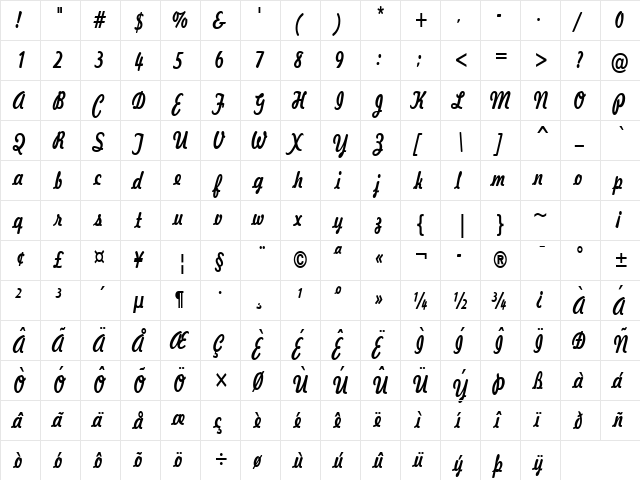
Jott 43 Thin Bold
Design Context for Jott 43 Thin Typeface
Jott 43 Thin takes a measured approach to typography — its balanced proportions and neutral character make it a reliable workhorse for both digital and print work. The heavy weight commands attention and anchors typographic hierarchies.